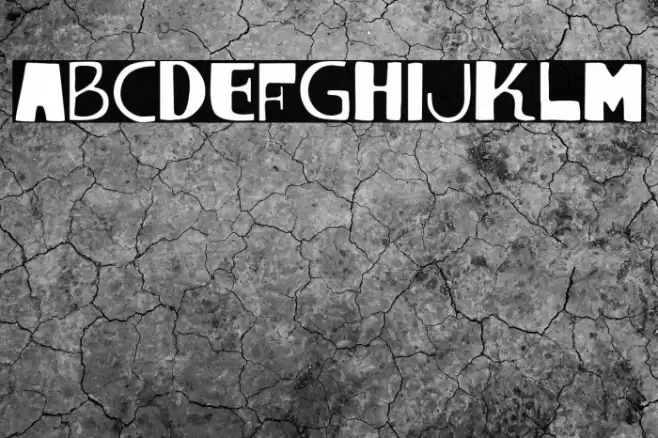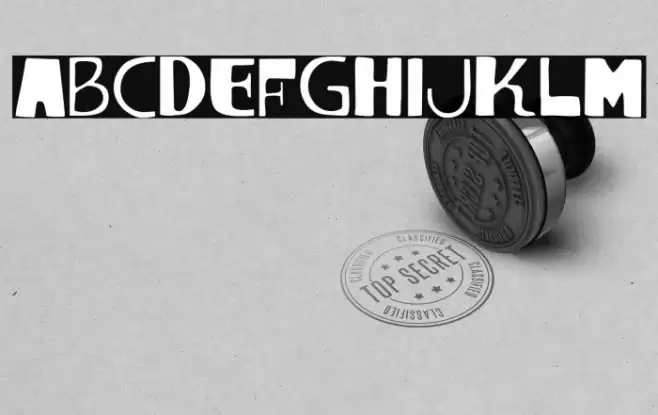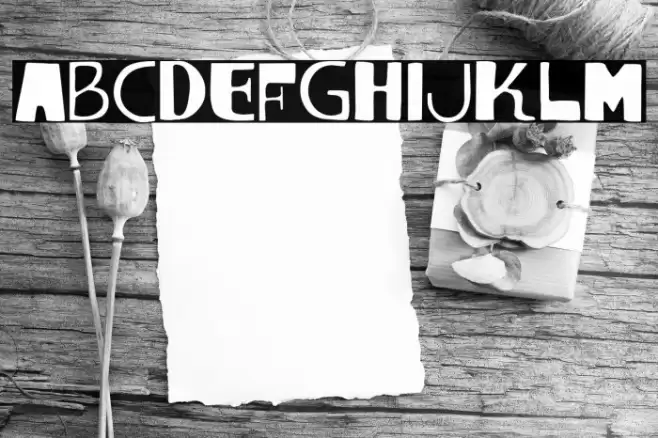
vtks lumina Font
vtks lumina Description
This font features a bold and playful design with a mix of solid and outlined characters. The uppercase letters exhibit a unique blend of thick and thin strokes, creating a dynamic visual effect. The font's style is reminiscent of retro or vintage aesthetics, with a touch of modern flair. The characters are slightly condensed, giving a compact appearance, while maintaining readability. The contrast between the filled and outlined letters adds an element of surprise and creativity, making it suitable for eye-catching designs.
A bold, playful font with a mix of solid and outlined characters, perfect for retro-inspired designs from Uncategorized fonts.
- Proposed Projects: Ideal for posters, logos, and branding projects that require a vintage or playful touch.
- Overall Style: Vintage
- Use Case: Logos, Headlines